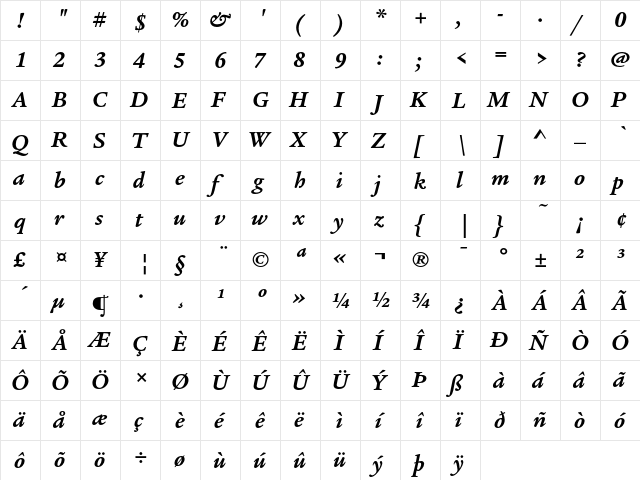
ITC Legacy Serif Bold Italic Font Preview
Design Context for ITC Legacy Serif Typeface
ITC Legacy Serif carries the refined structure of traditional serif typography, with bracketed terminals and considered proportions that communicate credibility and craft. The dynamic lean of this cut emphasises speed and emphasis in any layout. The heavy weight commands attention and anchors typographic hierarchies.
Pro Tip: Set ITC Legacy Serif with slightly loose tracking in headlines to let each letterform's detail read clearly at display sizes.